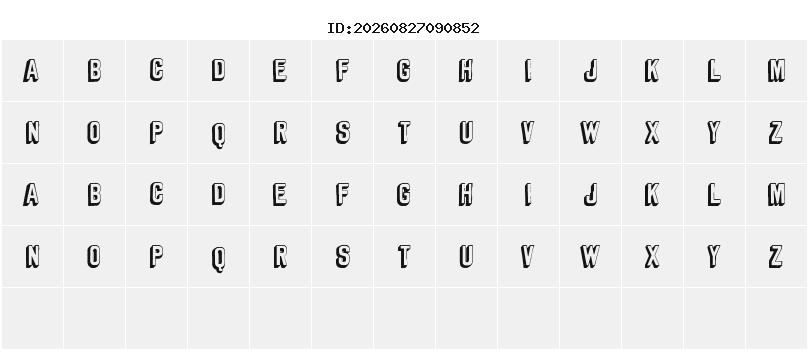
• Font Name: Comic Block DEMO by Marta van E
• Designer: Marta van Eck
About Comic Block DEMO by Marta van E.ttf
Comic Block DEMO by Marta van E.ttf is a modern, elegant sans-serif font designed for ultimate readability and visual harmony. Perfect for branding, headlines, web design, and print materials.